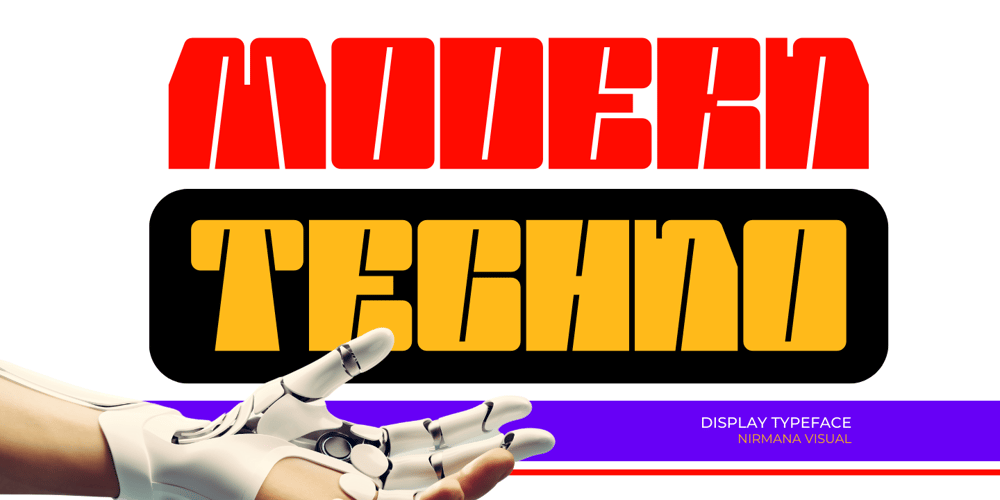
Modern Techno Font Family was designed by Sigit Dwipa and published by Nirmana Visual. Modern Techno contains 1 styles and family package options. Introducing our cutting-edge techno font, designed to add a futuristic and sleek aesthetic to your designs.Inspired by the sleek designs of technology and the digital age, this font captures the essence of innovation and progress. Its clean and precise letterforms, along with its distinct futuristic style, make it an excellent choice for technology-based branding, gaming graphics, sci-fi posters, and digital interfaces.